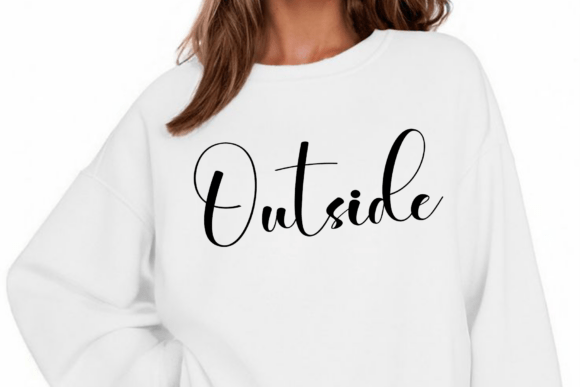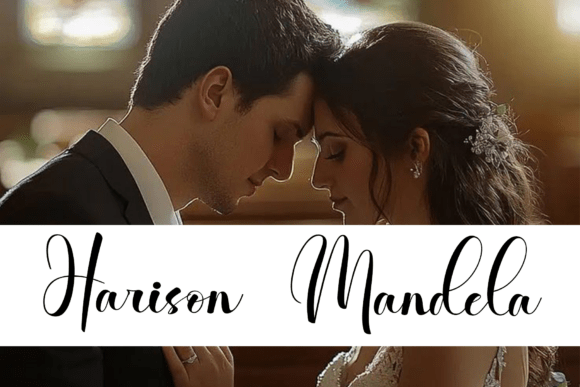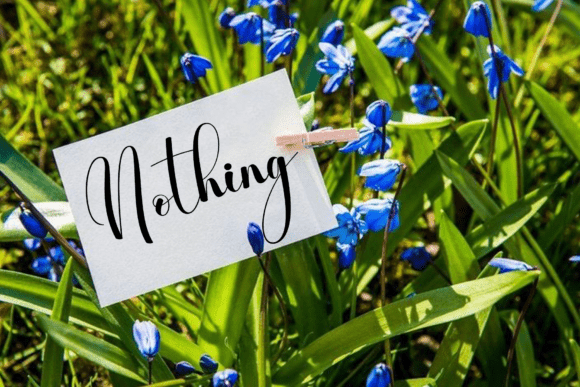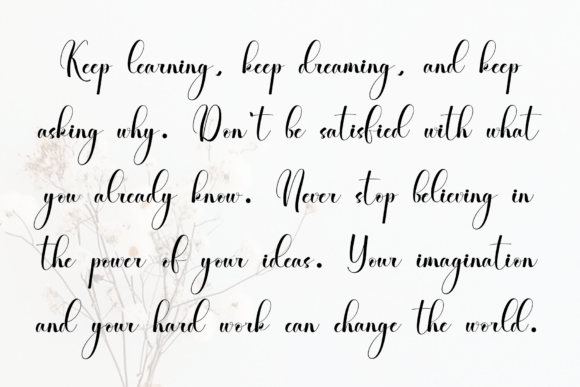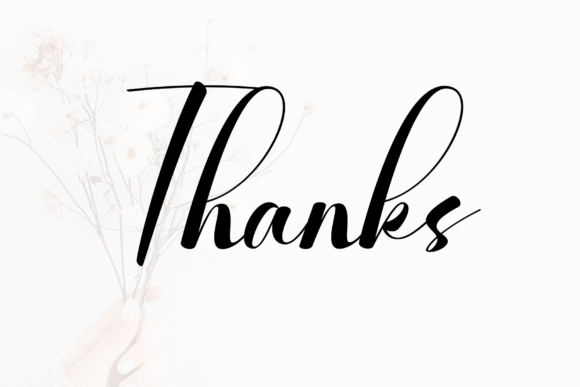
Introducing Handmade Font: Elevate Your Designs with Luxurious Modern Handwritten Script
In the world of typography, few fonts capture the essence of elegance and sophistication as beautifully as the Handmade font. This stunningly elegant and highly refined modern handwritten script font is designed to bring a touch of luxury and personalization to high-end branding, making it the perfect choice for designers and crafters seeking to elevate their creations.
The Artistry of Handmade Font
Handmade font embodies professional artistry, delivering a luxurious and personalized touch ideal for high-end branding. Its exquisite design is characterized by a dramatic contrast between thick downstrokes and delicate hairlines, along with beautifully integrated ligatures and swashes that enhance its sophistication. This unique combination of elements conveys the unique and professional quality of a skilled calligrapher, making it an exceptional choice for projects that demand a bespoke touch.
Perfect for Luxury Branding and Creative Projects
The Handmade font is the quintessential choice for a variety of creative projects, including:
- Luxury product labels: Add a touch of elegance and sophistication to your product labels, making them stand out in the market.
- Wedding stationery: Create beautiful and memorable wedding invitations, stationery, and other materials with this exquisite font.
- Sophisticated fashion branding: Elevate your fashion brand with a luxurious and refined typography that exudes high-end quality.
- Beauty and cosmetic logos: Create stunning logos and branding materials for beauty and cosmetic companies with this elegant font.
- Any creative project that demands a unique, high-quality, and deeply elegant handwritten script: From packaging design to editorial projects, Handmade font is the perfect choice for any project that requires a touch of luxury and sophistication.
PUA-Encoded for Effortless Customization
The Handmade font is also PUA-encoded, ensuring effortless access to all glyphs, swashes, and alternate characters. This feature allows designers and crafters to customize their creations with ease, making it simple to create unique and personalized designs that meet their specific needs.
Key Features of Handmade Font
- Dramatic contrast between thick downstrokes and delicate hairlines
- Beautifully integrated ligatures and swashes
- PUA-encoded for effortless access to all glyphs, swashes, and alternate characters
- Highly refined modern handwritten script
- Luxurious and personalized touch ideal for high-end branding
Why Choose Handmade Font?
Handmade font is the perfect choice for designers and crafters seeking to elevate their creations with a touch of luxury and sophistication. Its exquisite design, elegant features, and effortless customization capabilities make it an exceptional choice for a variety of creative projects. With Handmade font, you can:
- Create stunning and memorable branding materials
- Add a touch of elegance and sophistication to your designs
- Elevate your designs with a luxurious and refined typography
- Effortlessly customize your creations with PUA-encoded glyphs, swashes, and alternate characters
In conclusion, Handmade font is a truly exceptional modern handwritten script font that embodies professional artistry and luxury. Its exquisite design, elegant features, and effortless customization capabilities make it the perfect choice for designers and crafters seeking to elevate their creations with a touch of sophistication and elegance.